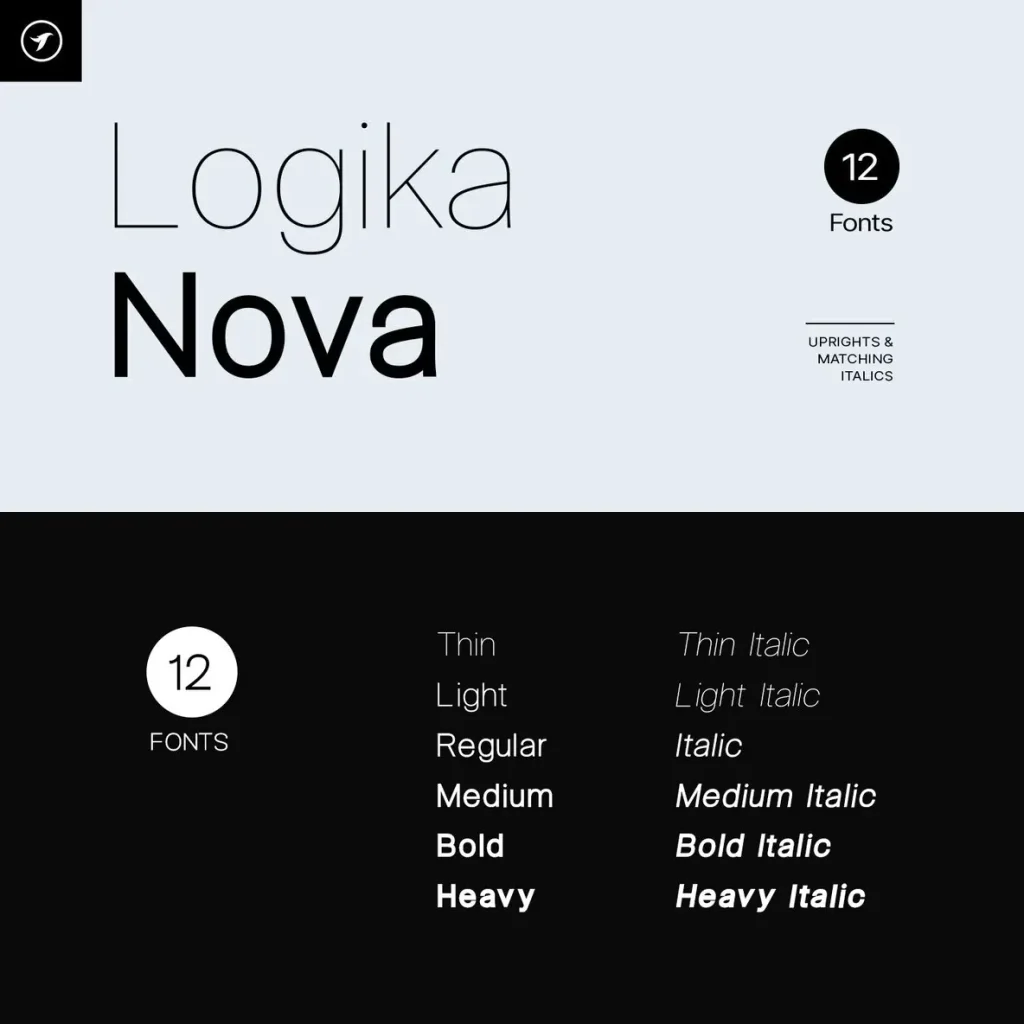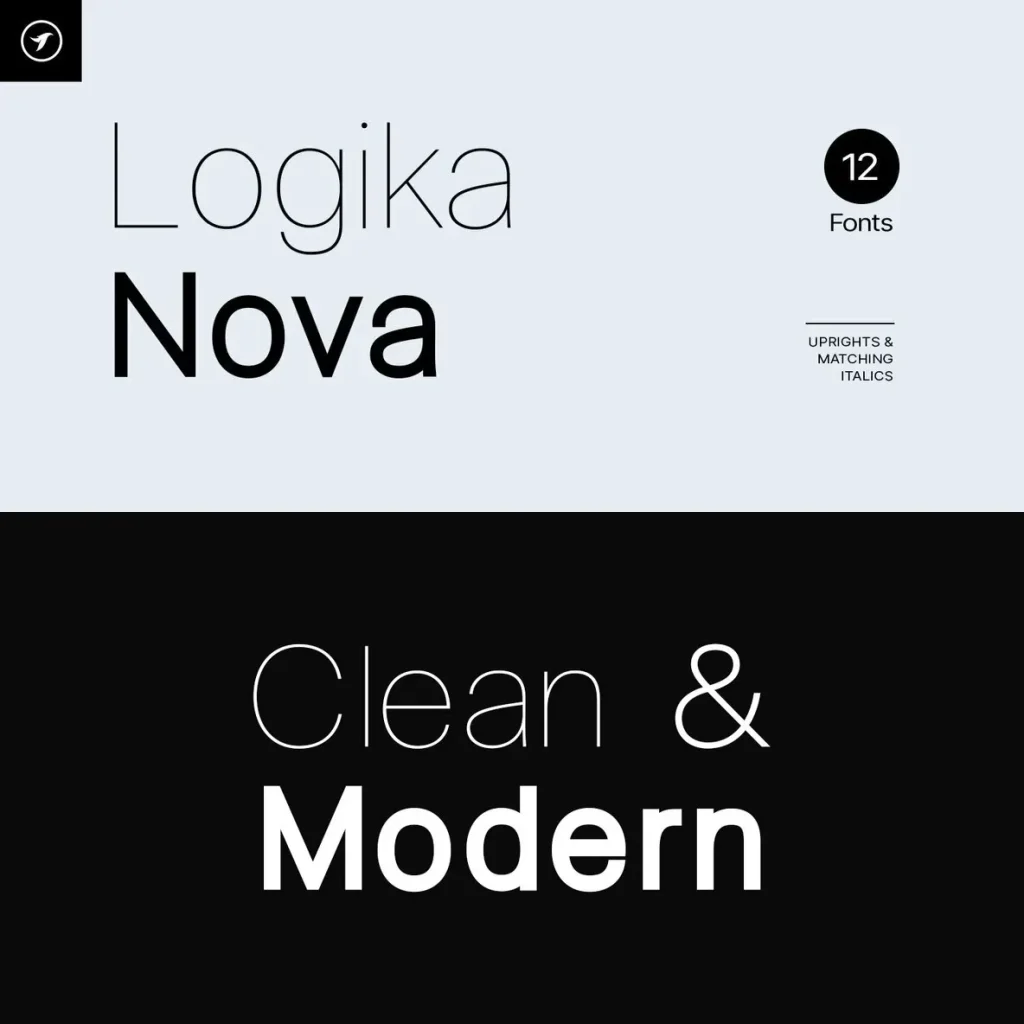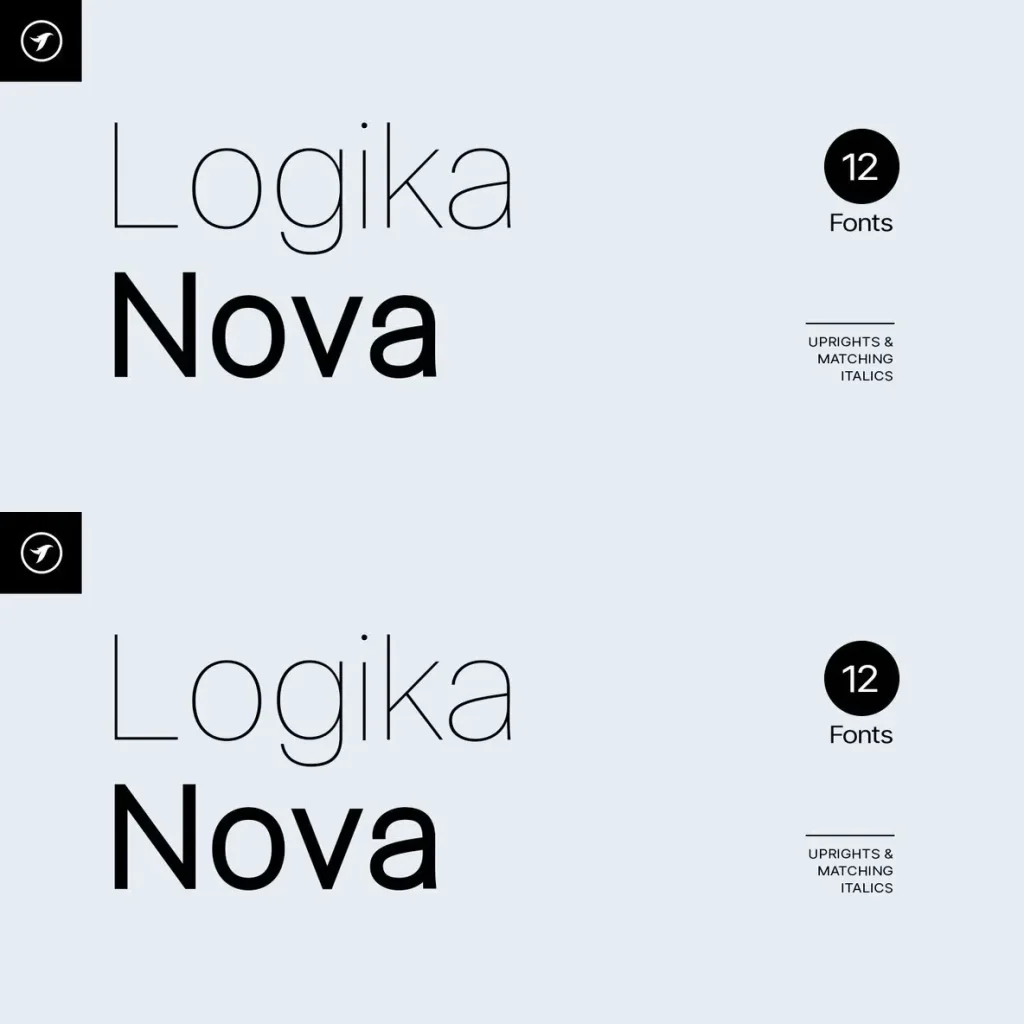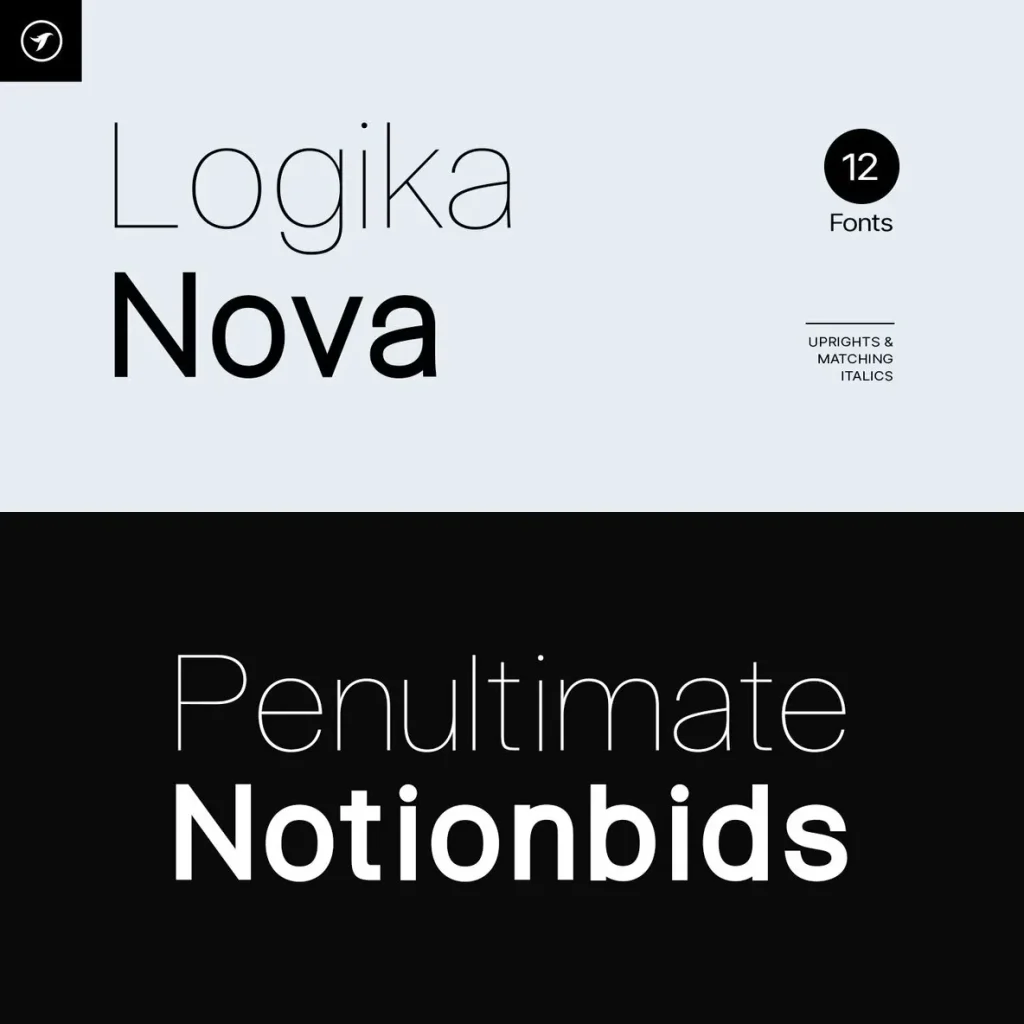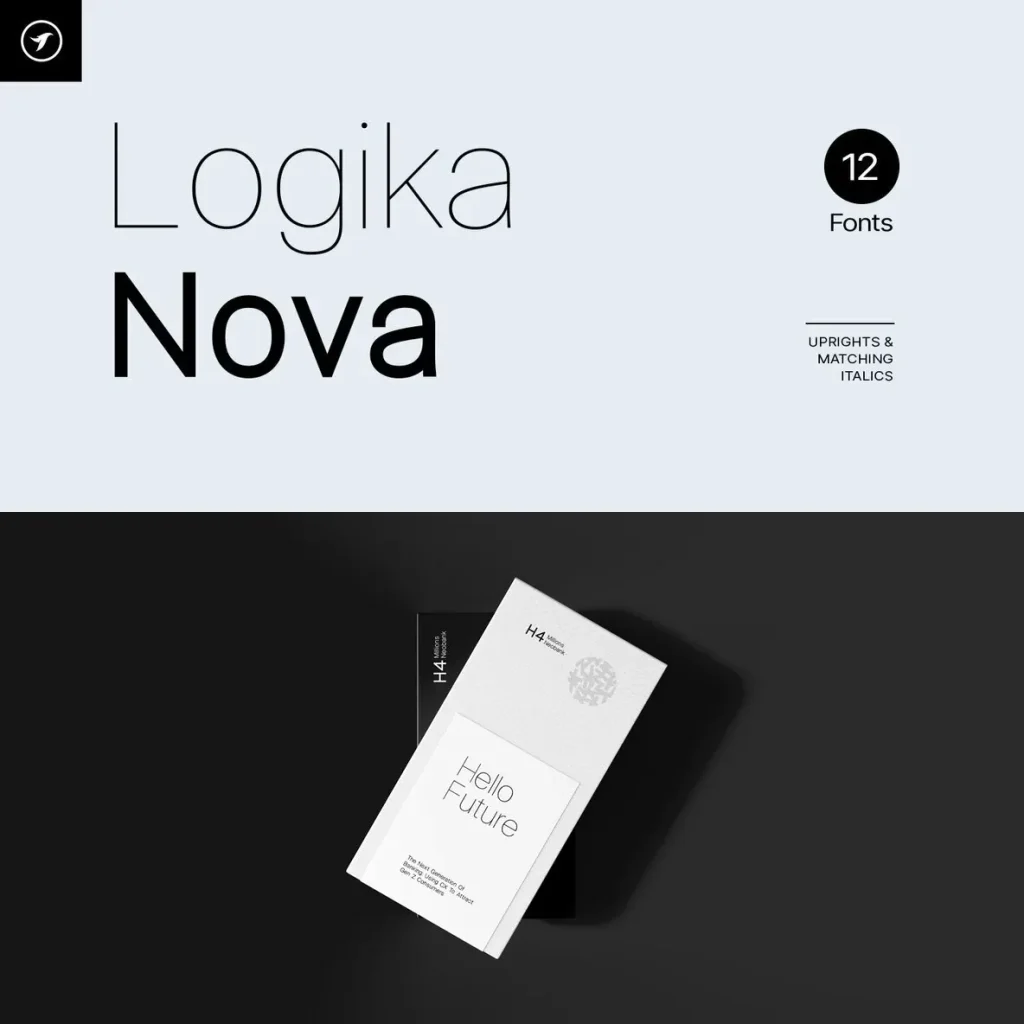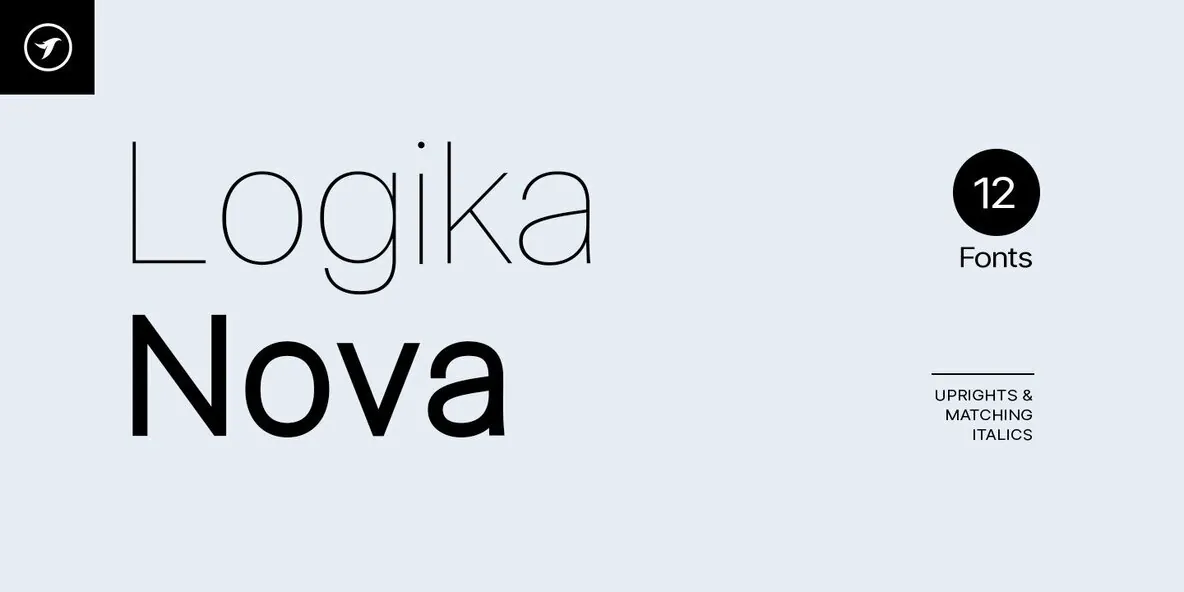
LOGIKA NOVA — Geometry with Poise
LOGIKA NOVA is a minimalist sans-serif typeface family designed with clean geometry, refined proportions, and a contemporary character.
Its restrained forms give typography a clear, precise voice for design work that calls for balance and simplicity. LOGIKA NOVA suits projects where a modern sans-serif font should feel orderly, polished, and easy to read.